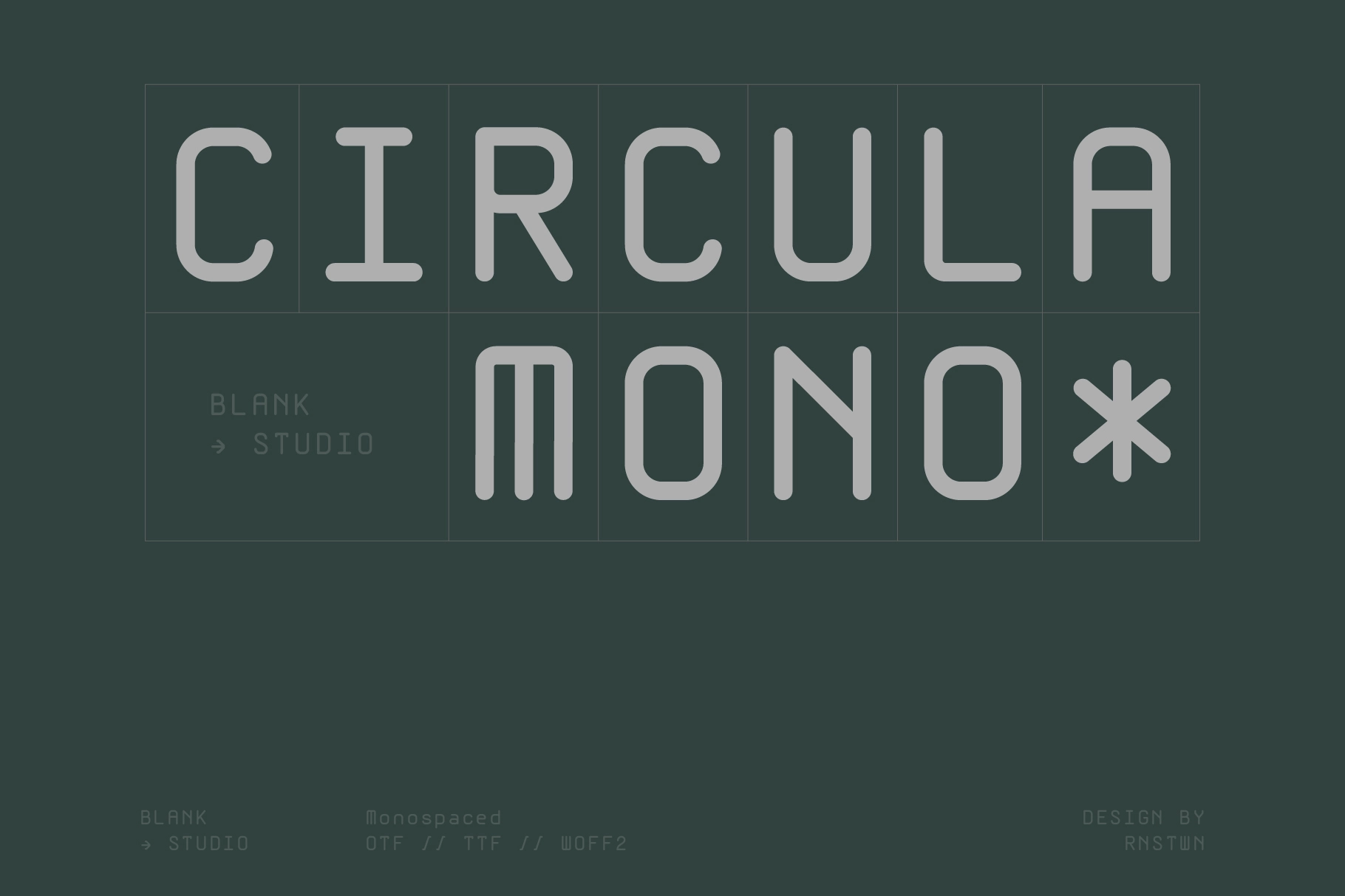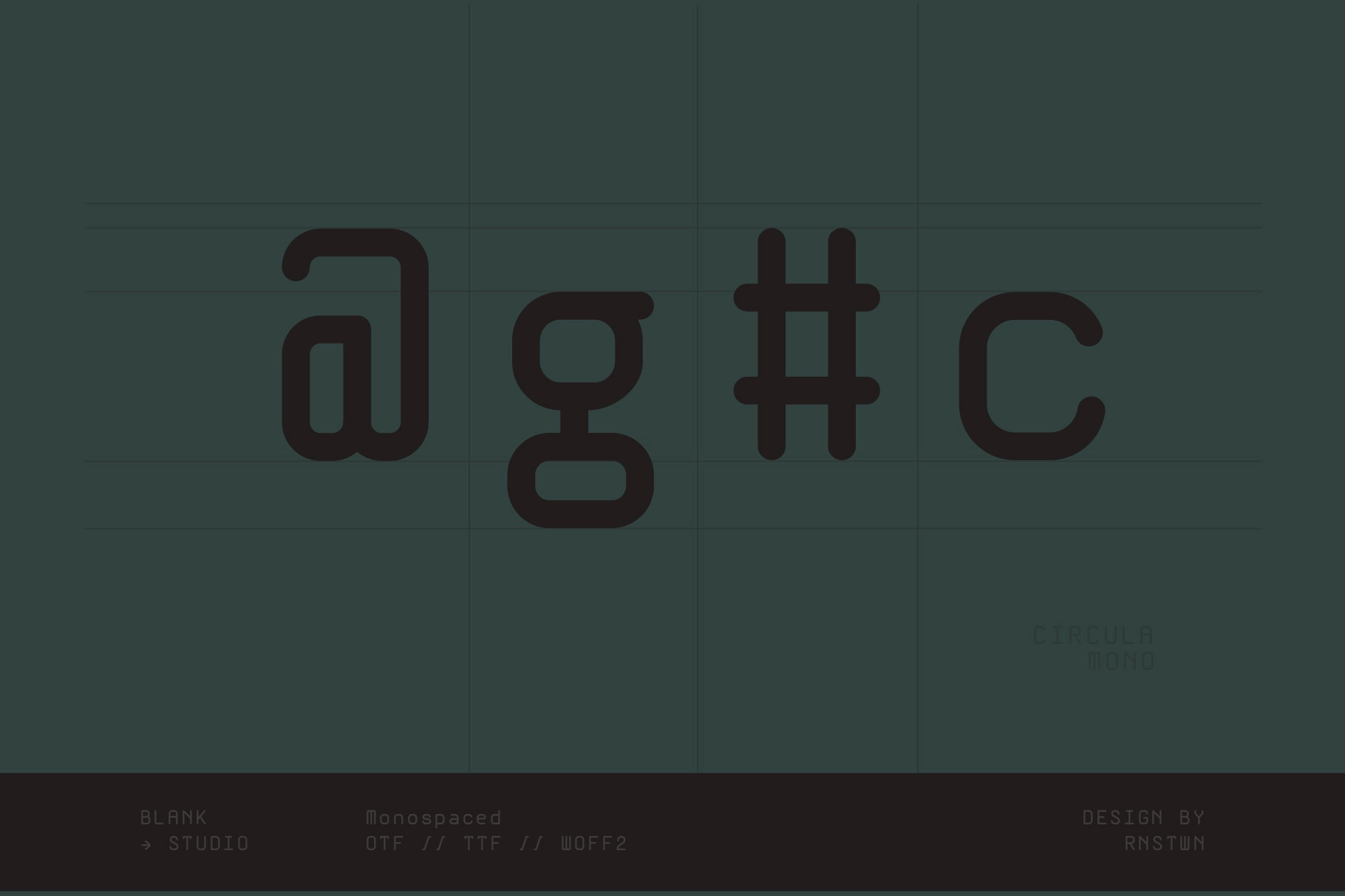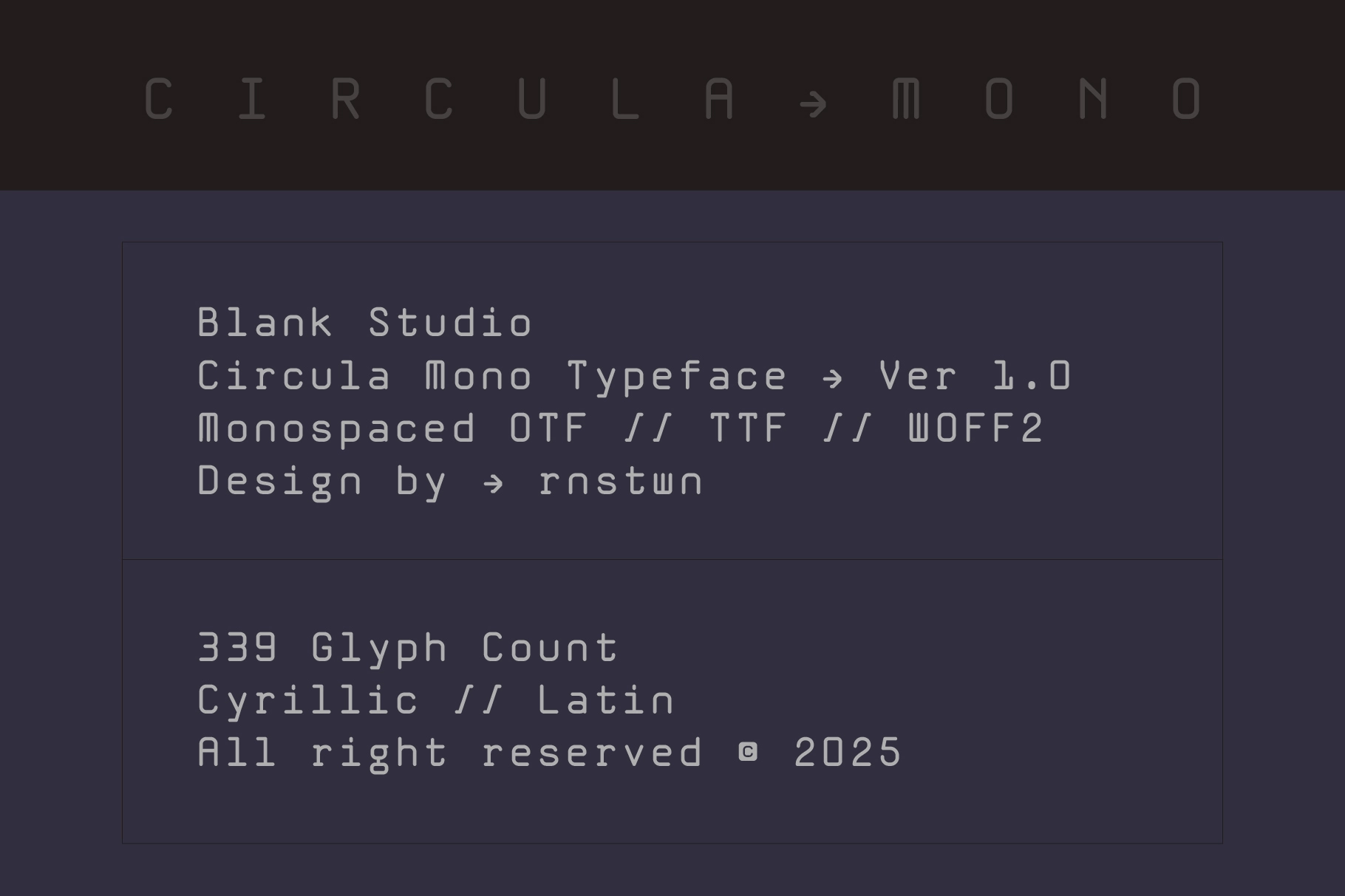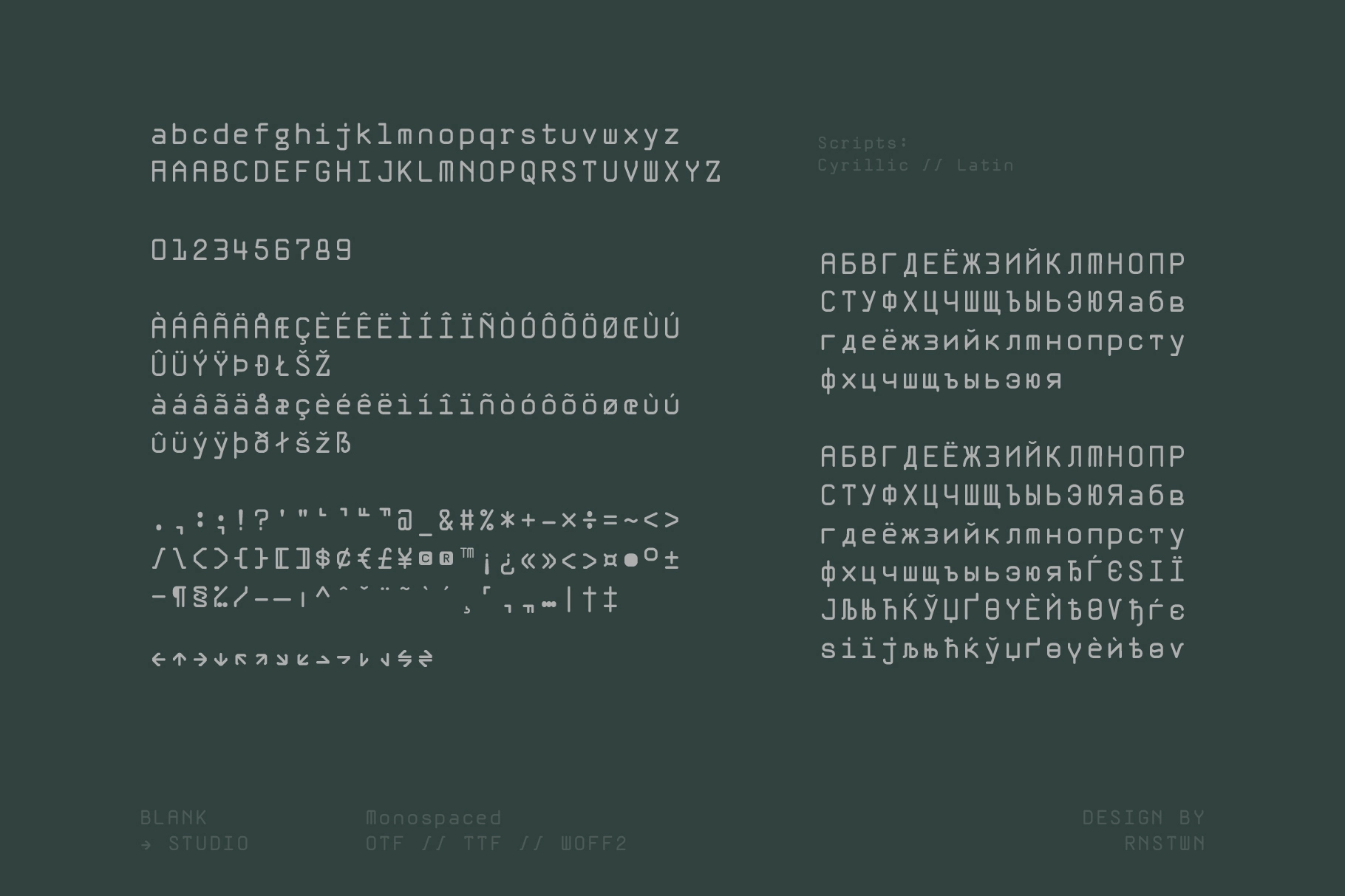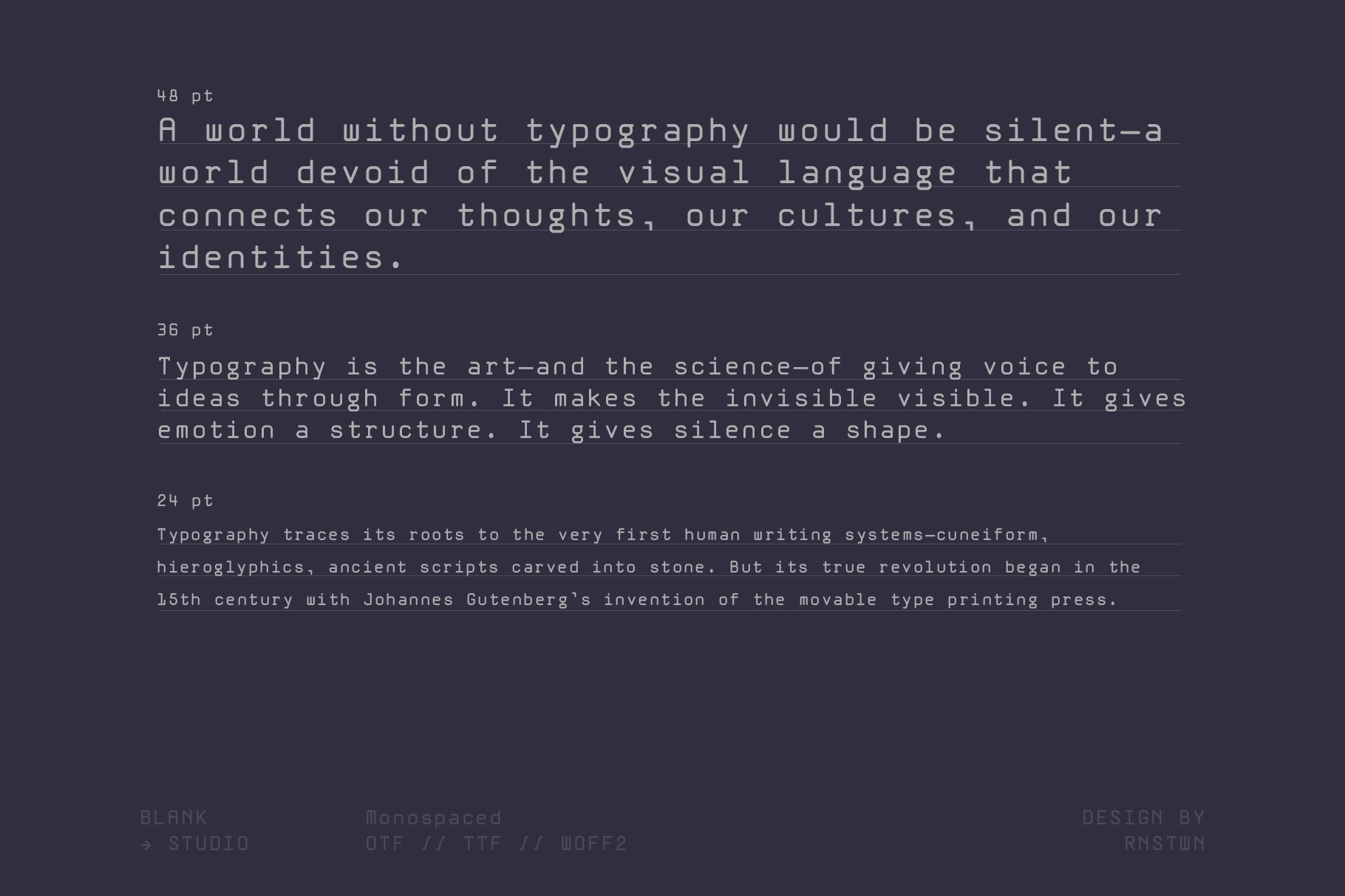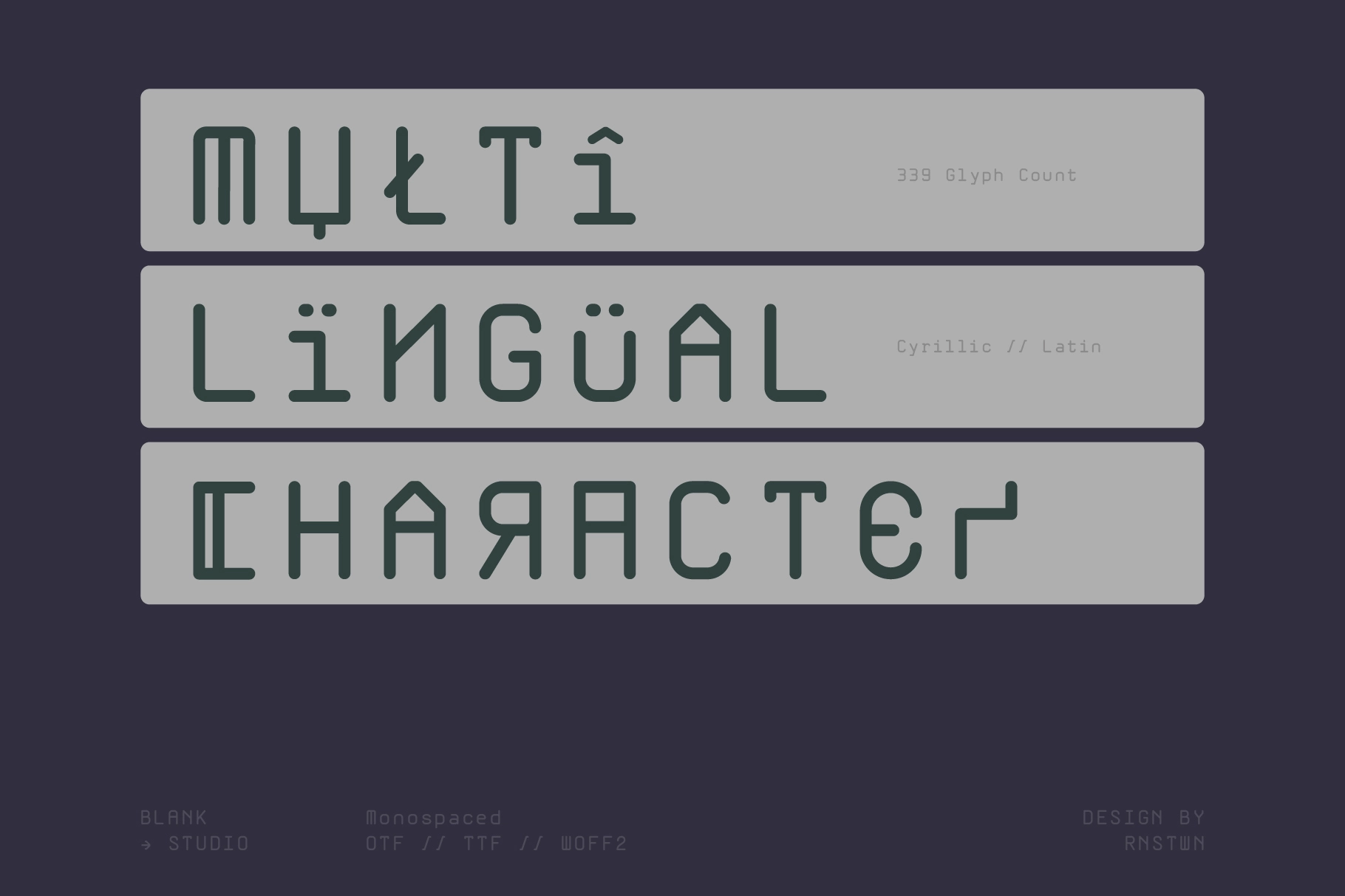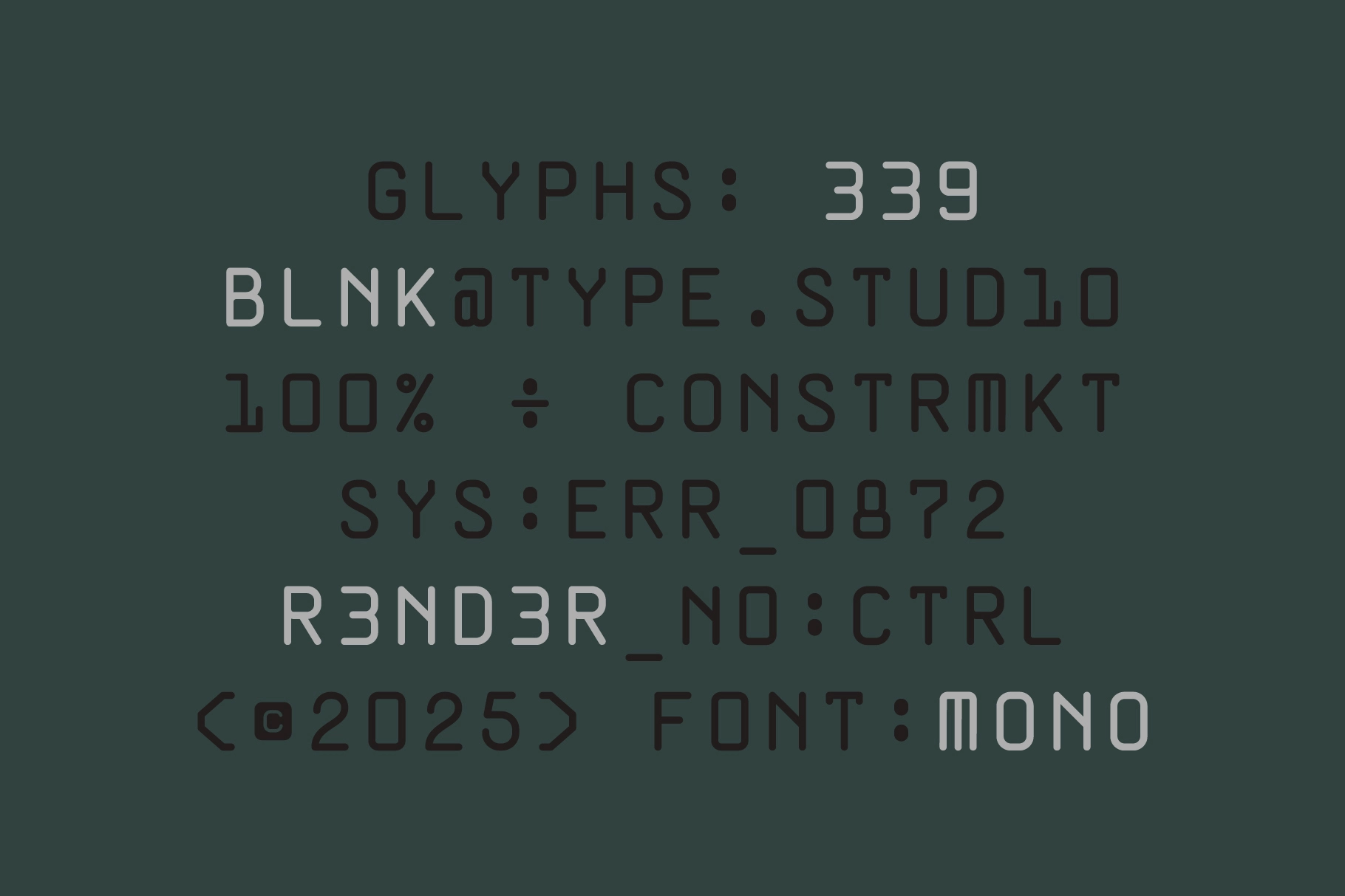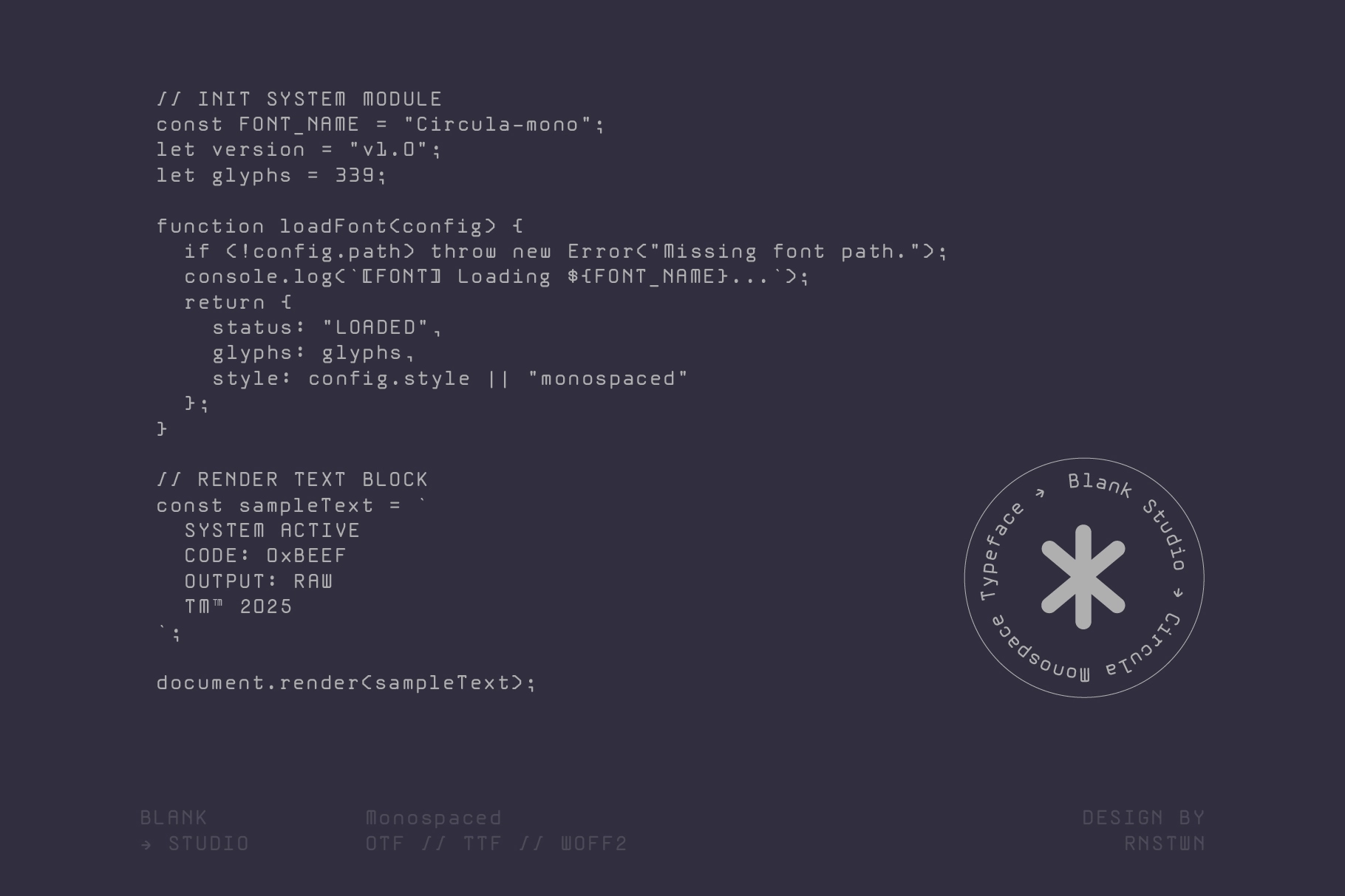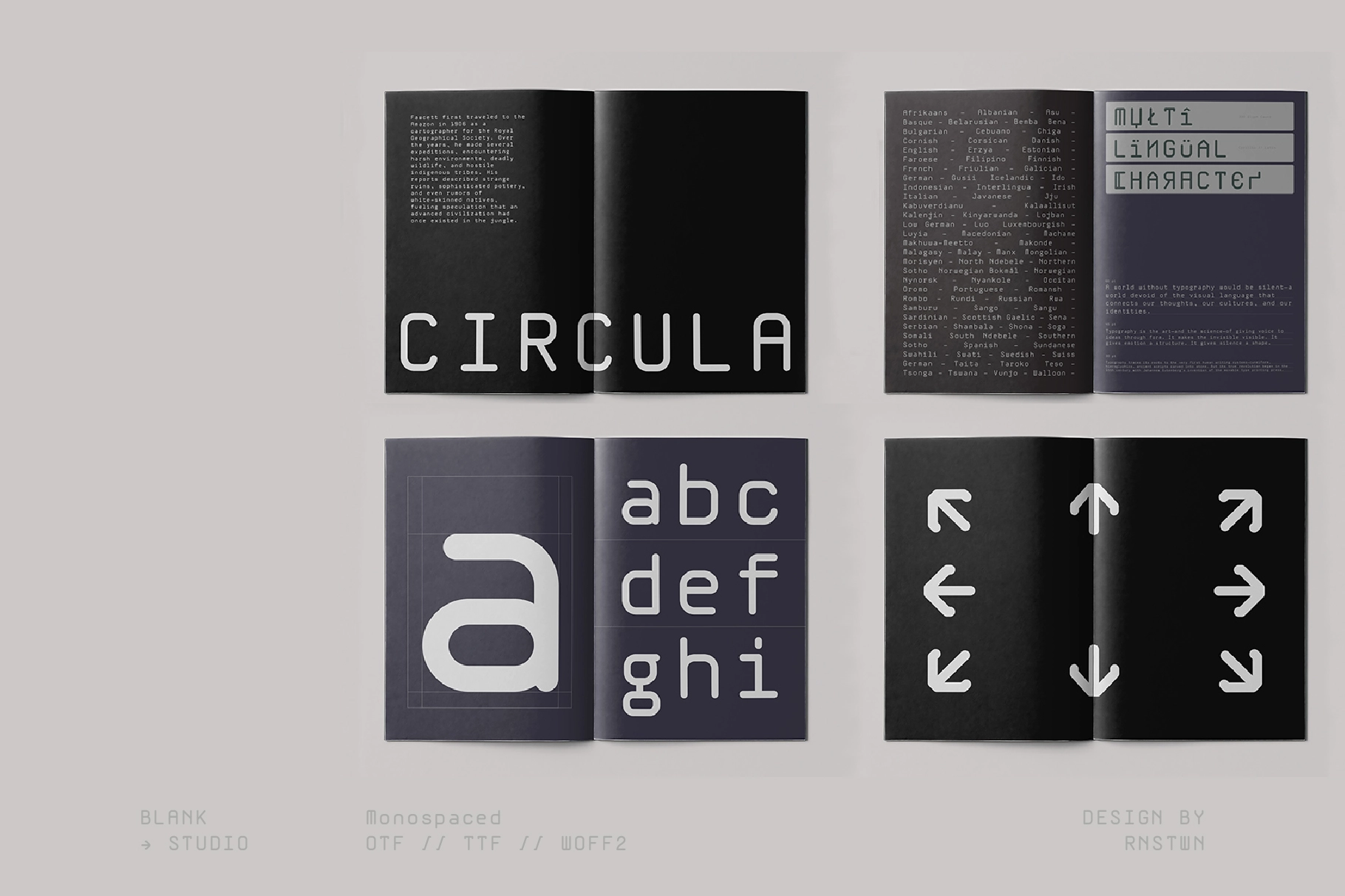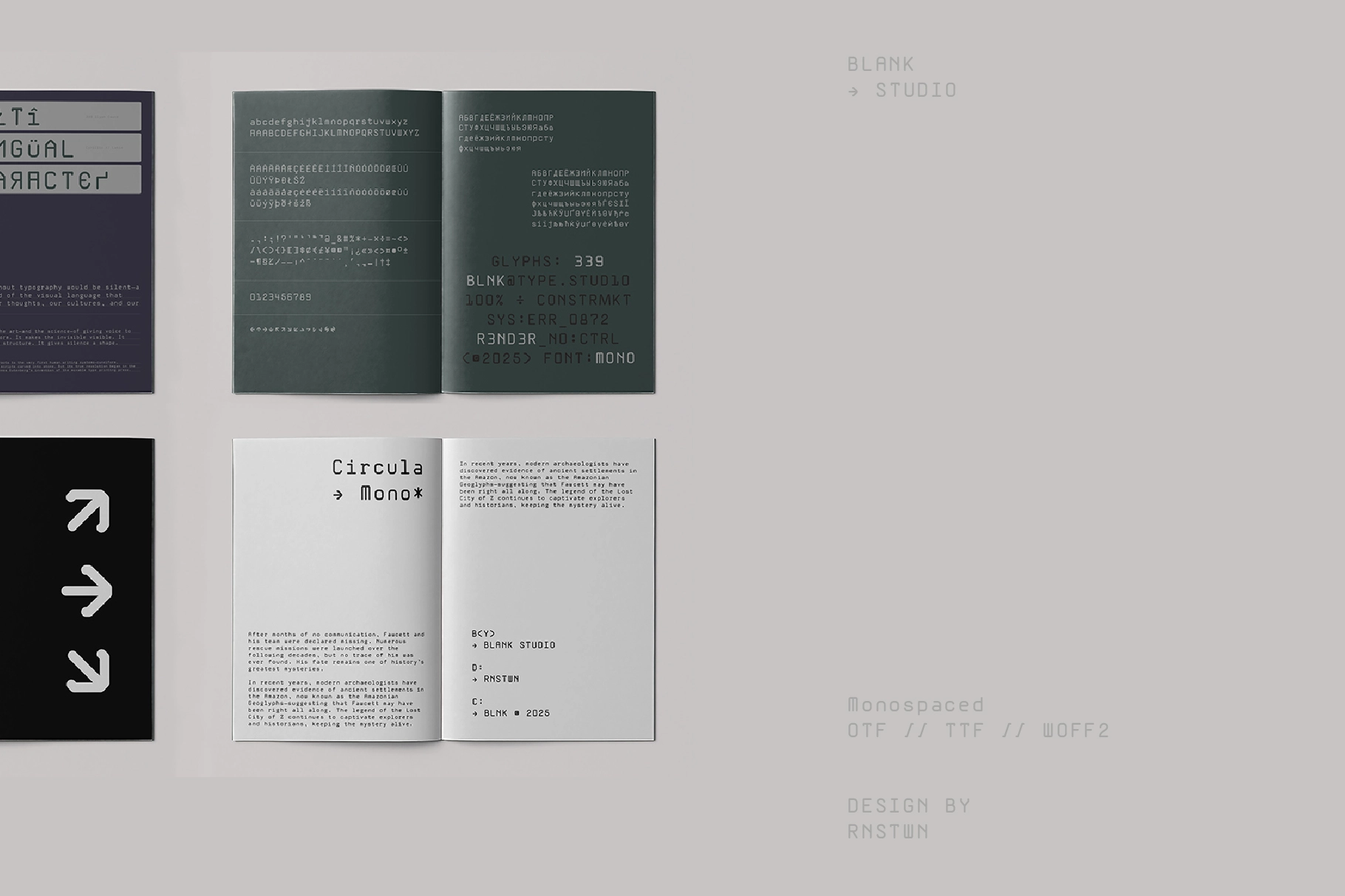
Circula Mono - Rounded Monospace Sans Font
Circula Mono is a rounded monospace font built on strict grid spacing and fully circular construction — every terminal is soft-cut, every counter is open, and the double-storey "g" sits inside a closed rectangular bowl that reads closer to a UI glyph than a traditional letter. The uniform width and low stroke contrast give it a clean, instrument-panel quality without losing warmth.
It works best where structure and readability share equal weight. Use it for code interfaces, developer tools, data dashboards, tech branding, poster headlines, app UI copy, packaging for hardware or software products, and editorial layouts with a systems-design aesthetic.
• uppercase & lowercase;
• numerals, punctuation & symbols;
• 339 glyphs;
• multilingual support.